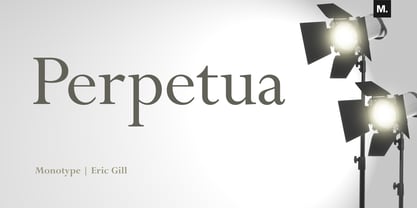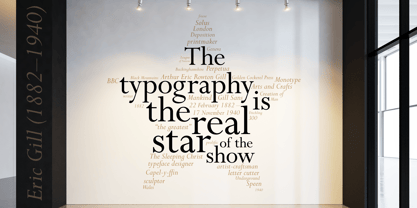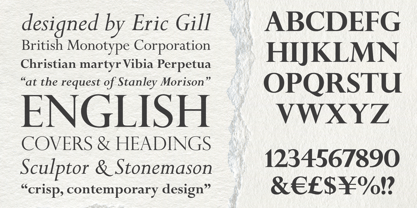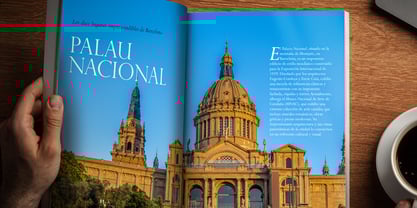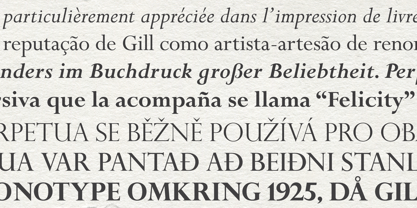
Perpetua®
Die Schriftfamilie Perpetua wurde von Eric Gill entworfen und von Monotype veröffentlicht. Perpetua enthält 7 Stile und Familienpaketoptionen.
Perpetua was hailed as a fresh, new design, quite unlike any that preceded it, when it was released in the early 20th century. Along with its three titling fonts, it became one of the most used typeface families for fine book typography. Today, it is a staple for setting textual content in print and on screen.
First use was in the English translation of “The Passion of Perpetua and Felicity.” The roman was named “Perpetua.” The first italic, named “Felicity,” was a sloped roman. Later, a traditional, cursive, italic was designed. Perpetua was seven years in the making. While some sources give Perpetua a release date of 1929 based on early uses, but it was not a full commercial suite of fonts until 1932.
Historically associated with book publishing – especially fine editions and memorial inscriptions – Perpetua now shines beyond print. It can be an ideal choice for museum exhibition graphics, where readability, subtle beauty, and reverence for content are essential. Its architectural letterforms resonate powerfully across gallery wall text, description panels, and interpretive signage – melding gravitas and high levels of readability.
Designer: Eric Gill